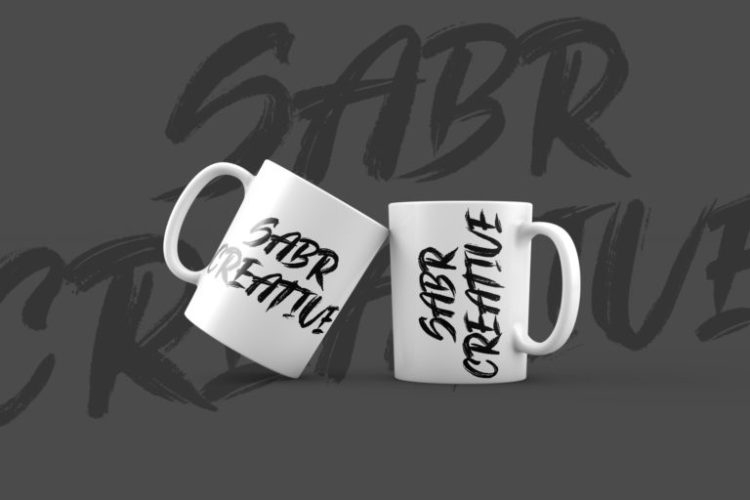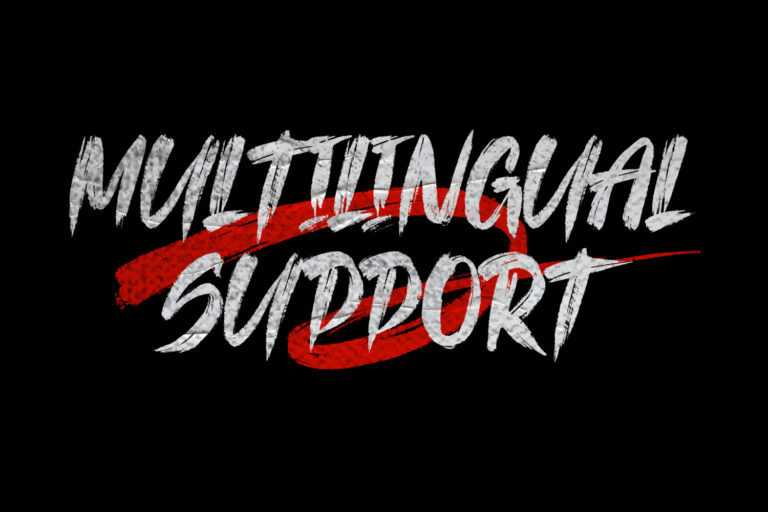
The Kallman fonts with a natural brush style, which has a perfect texture makes your work more natural.
The Kallman is ideal for logos, apparel, quotes, product packaging, or anything which needs a typographic turbo boost.